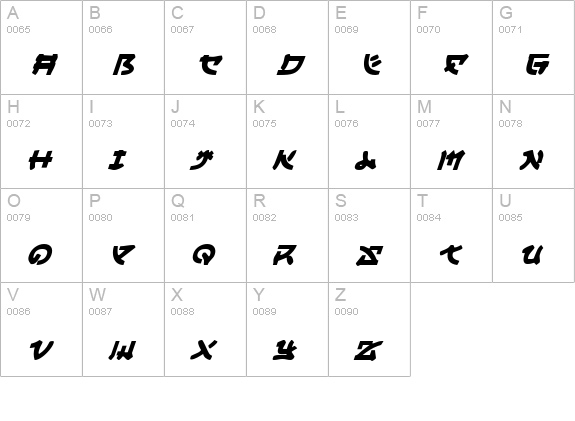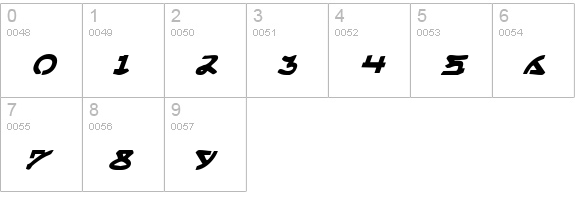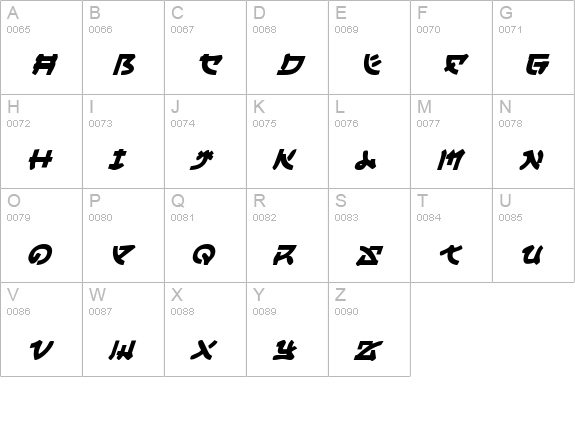
Yama Moto Italic is a distinctive, italic variant in the Yama typeface family \xE2\x80\x94 well suited to design and typography projects.
Introducing Yama Moto Italic font, a sleek and modern typeface that exudes elegance and sophistication. With its stylish curves and unique design, Yama Moto Italic is perfect for adding a touch of class to any project. This versatile font is ideal for a wide range of applications, from branding and advertising to web design and print materials. Its italic style adds a sense of flair and dynamism to your text, making it stand out and grab attention. Yama Moto Italic is not only visually appealing but also highly legible, ensuring that your message is conveyed effectively. Whether you are creating a logo, designing a website, or working on a poster, this font is sure to make a lasting impression. Best of all, Yama Moto Italic is available for free download at FontsMarket.com. Don't miss out on the opportunity to enhance your projects with this stunning font. Download Yama Moto Italic today and elevate your design to the next level.